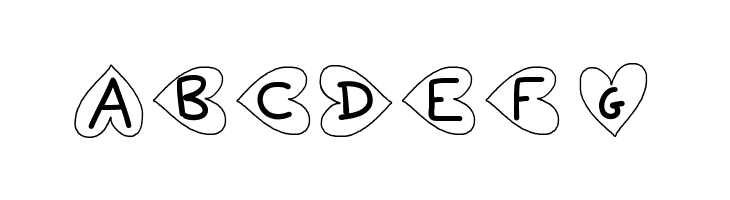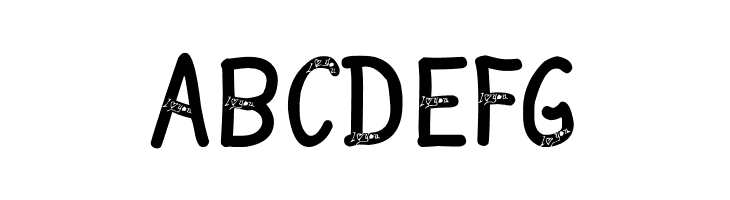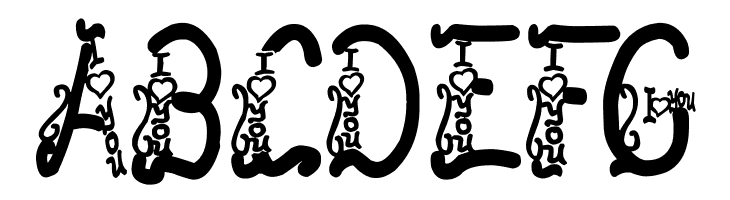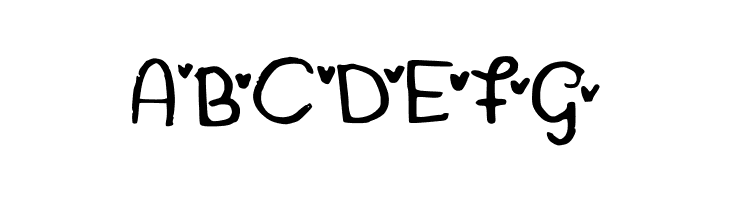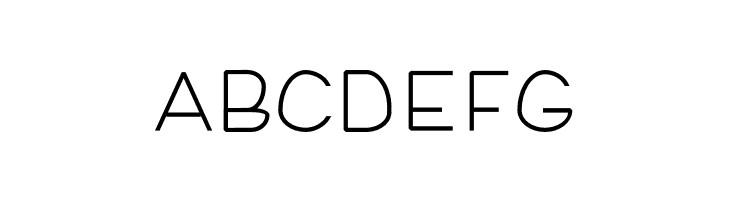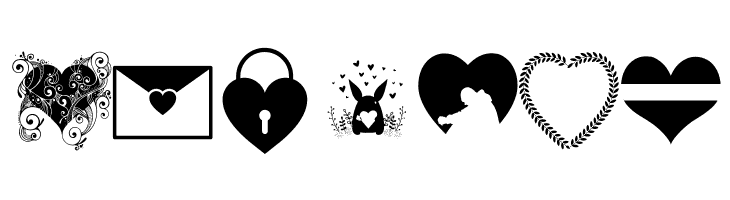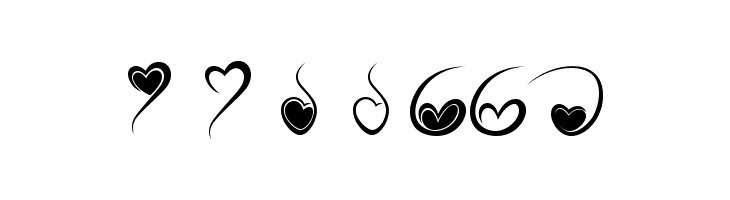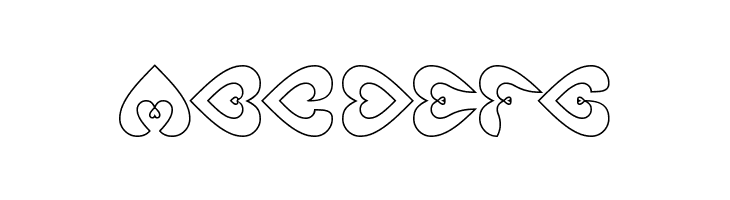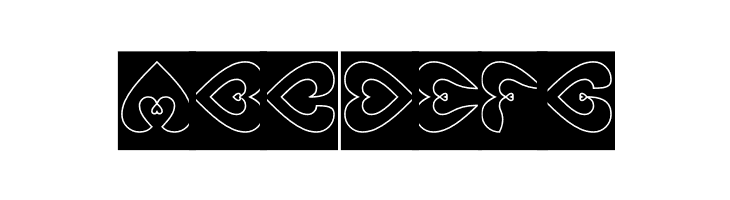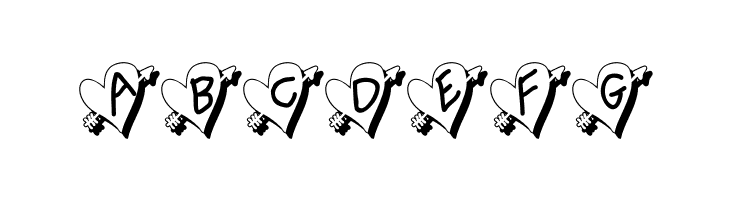
An elegant script font with flowing lines and sophisticated style.
An elegant, cursive font with flowing, handwritten style.
A playful, heart-themed font with bold, rounded characters enclosed in heart shapes.
A decorative font made of heart shapes, perfect for romantic and playful designs.
A playful, heart-embellished handwritten font with a whimsical and romantic style.
A playful, heart-themed decorative font with bold, rounded characters.
An elegant script font with flowing, cursive letterforms and high contrast strokes.
A playful, heart-themed font with bold, rounded characters and a hand-drawn style.
A whimsical font with characters enclosed in heart shapes, ideal for romantic themes.
A decorative font with a heart pattern, ideal for playful and romantic designs.
A playful, heart-themed font with bold, stylized characters.
A whimsical, heart-adorned font with tall, slender characters and a modern flair.
A decorative collection of heart-themed symbols and designs conveying love and affection.
An elegant script font with ornate, flowing letterforms and decorative flourishes.
A whimsical, heart-themed decorative font with playful curves.
A whimsical collection of heart-themed decorative symbols.
A decorative font with characters enclosed in heart shapes, perfect for romantic themes.
A playful, heart-themed decorative font with hollow outlines.
A playful, heart-themed decorative font with bold, whimsical characters.
A playful, heart-themed decorative font with hollow outlines.
A whimsical font with heart motifs, perfect for romantic and playful designs.
A playful, heart-themed font with hollow, flowing lines.
A whimsical, heart-themed decorative font with a shadow effect.
A whimsical, heart-themed decorative font perfect for romantic projects.
A decorative font made of heart shapes, perfect for romantic and playful designs.
A whimsical script font with heart motifs and elegant, flowing letters.
A whimsical font with cherub illustrations accompanying each character.
A decorative font with characters set within ornate heart shapes, combining serif elements with intricate designs.
A decorative, cherub-themed font with heart-shaped characters.
A decorative font with characters inside heart-shaped floral designs.
( FontasyLand - www.fontparty.com/designer.php3?dd=195 )
A whimsical, decorative font with rose motifs and a handwritten style.
A whimsical, heart-shaped font with a handwritten, brush-like style.
A decorative font with characters enclosed in heart shapes, offering a playful and romantic style.
A whimsical font with characters inside heart shapes, ideal for romantic and playful designs.